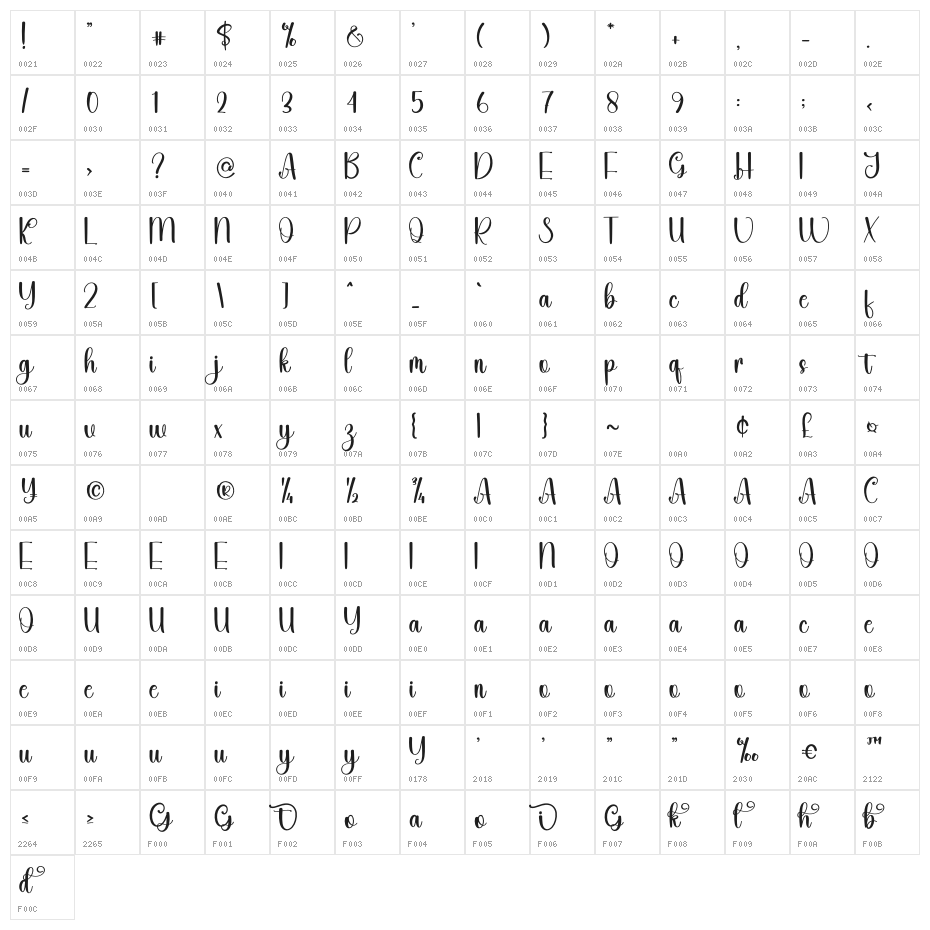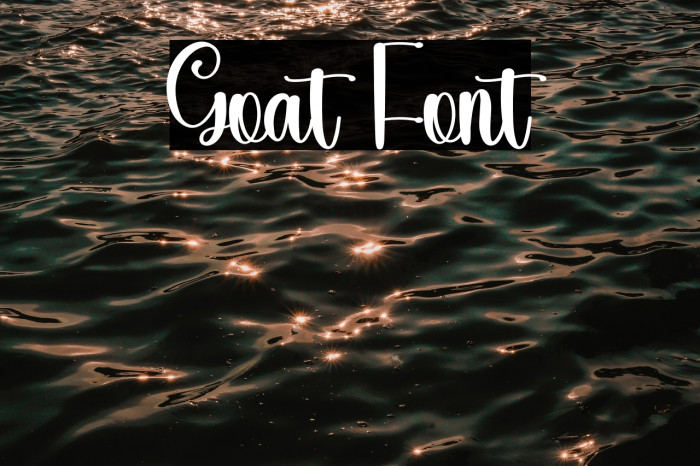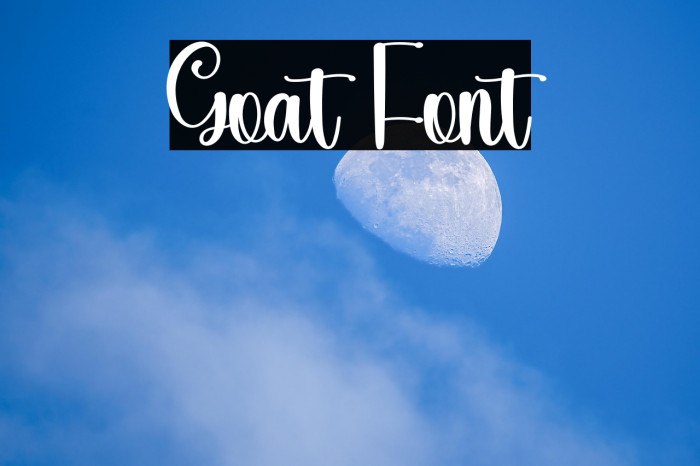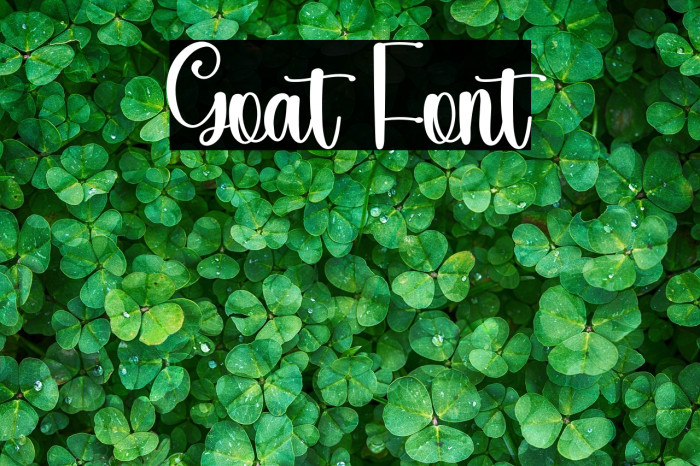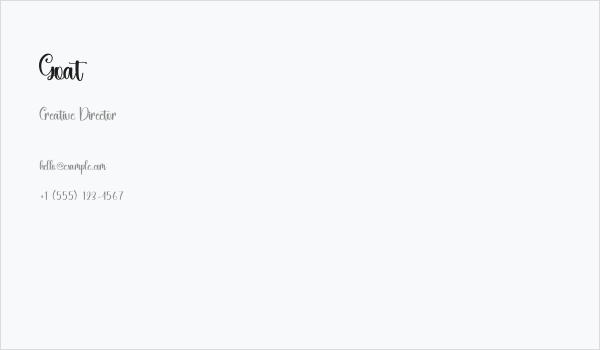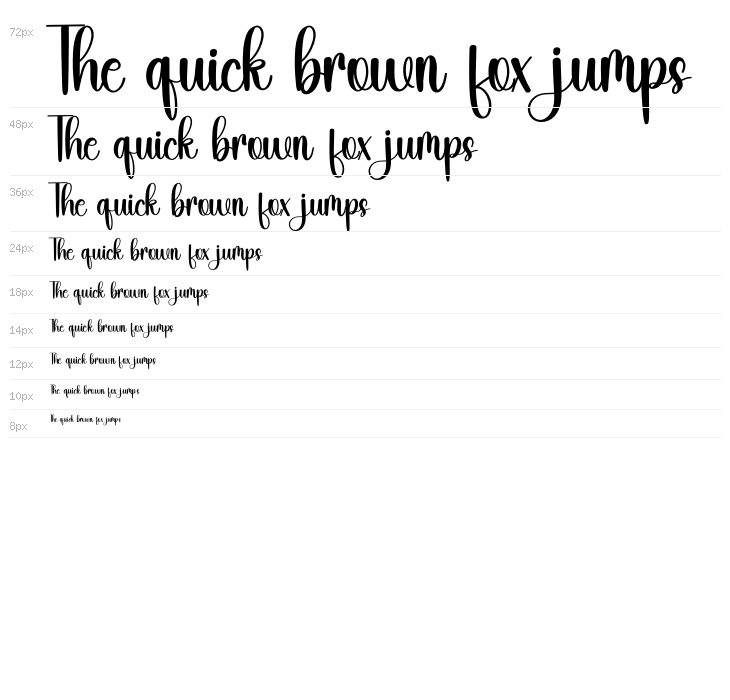
Goat Font
A decorative script font with flowing, cursive letters and a playful, whimsical style. The characters have a hand-drawn appearance with varying stroke widths.
| Overall Style | Decorative, Whimsical |
| Use Case | Logos, Invitations, Decorative text |
| Proposed Projects | Invitations, greeting cards, branding, and decorative headlines. |